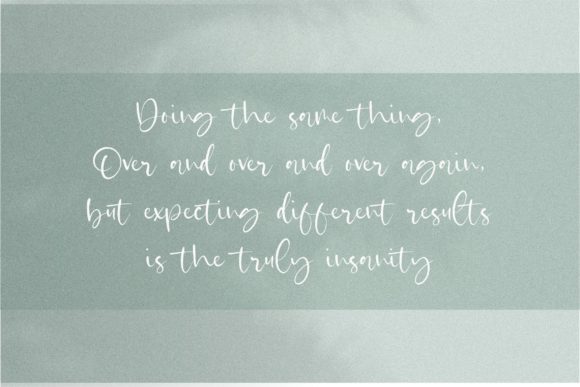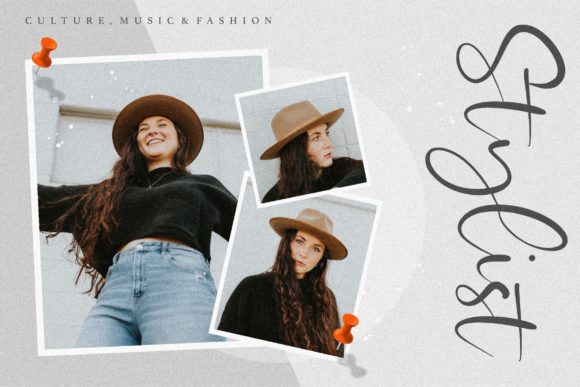
Castilla Font
db-ku.com - Script & Handwritten -- Castilla is a sweet, relaxed and timeless handwritten font. This gentle font will look gorgeous on a variety of design ideas. It will add a joyful and romantic touch to each of your projects!